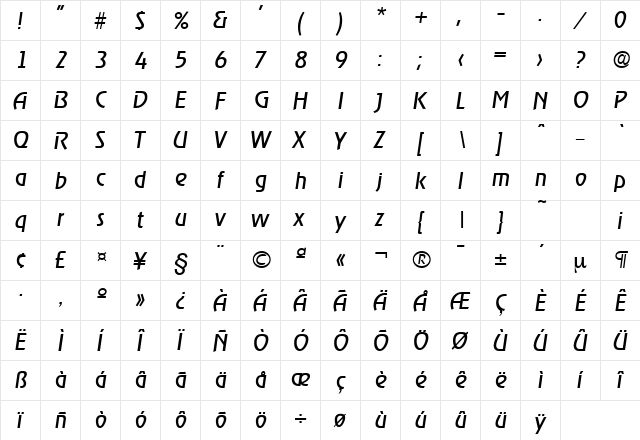
Ragtime-Serial RegularItalic
Design Context for Ragtime-Serial Typeface
Ragtime-Serial is a composed and adaptable typeface that performs quietly and consistently across a wide range of design contexts. The dynamic lean of this cut emphasises speed and emphasis in any layout.
Pro Tip: Use Ragtime-Serial for emphasis, pull quotes, and subheadings where its slanted energy can add rhythm to the layout.